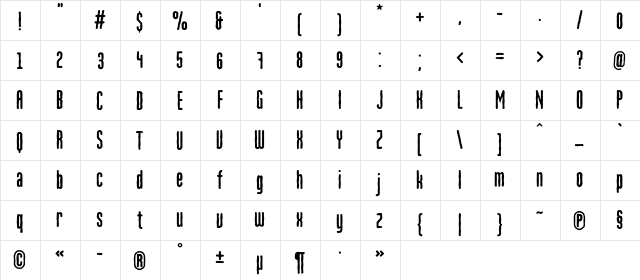
MartenRoughC Regular Font Preview
MartenRoughC Regular
MartenRoughC Regular Font Details
Design Context for MartenRoughC Typeface
MartenRoughC embraces imperfection — its rough, textured character adds raw authenticity to designs that want to feel lived-in and unconventional.
A strong fit for alternative music projects, graffiti-adjacent design, and anything that deliberately resists polish.
Pro Tip: Use MartenRoughC at larger sizes where the texture and irregularity of each letterform can be clearly seen — it loses its character at small sizes.